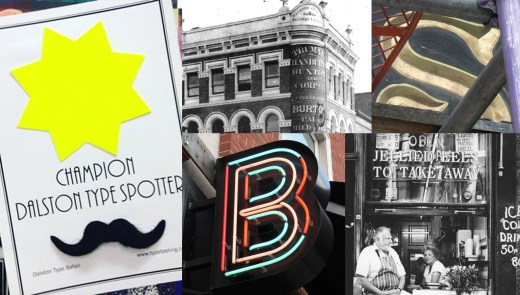
It’s turned into a lovely day, perfect for a balmy Dalston Type Safari with Pia and her 13 graphic design students from Denmark. We’re looking forward to seeing the photographs they take tonight and will post them here soon…
What does signage along a high street reveal about an area? What assumptions do you make that influence your choices? Will you take up the letter hunt challenge? (No prior experience needed, ideal for all).
Dalston Type Safaris are back for Summer 2016 due to popular demand, with different signs to spot and a new letter hunt challenge. Join author Sarah Hyndman for a walking tour of Dalston, a dynamic and fast changing area in East London. Learn about the signage along the way and how it creates the area’s own unique typographic DNA.
READ ALL ABOUT IT! Writer Ellen Himelfarb came along on a recent type safari, read her account of the evening published in AIGA’s Eye on Design.
“Look at Dalston’s signage in a whole new light on this tour of the area’s typefaces. The walks will reveal more about the area’s history, taking in art deco cinemas, a paint factory, pie and eel shop and the market that inspired Eastenders.” Time Out
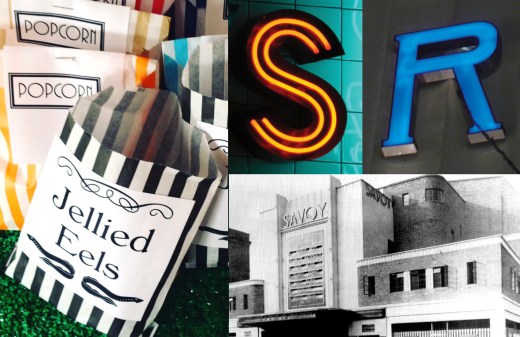
We are surrounded by type and we use it to navigate our everyday lives. The letterforms we encounter as we walk down the high street influence our choices before we’ve even read the words. These also reveal a great deal about the the location, reflecting the social, economic and historical development of the area.
Dalston in East London is a vibrant area in which bars and shops are constantly popping up and the signage is ever changing. The signs along the main road, Kingsland Road, reveal layers of history dating back to when it was a London outpost in the 1800s with it’s own grand department store, pie & eel shops and a factory that sold paints to JMW Turner. Signs from the Art Deco cinemas have been preserved alongside the vernacular D.I.Y. signage of the market stalls and the lettering over the shops and restaurants that reflect the different communities who have made the area home over the years. Many venues, along with their signage, have become iconic landmarks.
• Spend time with like-minded people spotting signs.
• As an introduction to fonts for a novice, or a typographic indulgence for a graphic designer.
• Explore the city in a unique and revealing way.
• Hear about London history and the transformation of an area.
• Find out about great places to eat and drink in Dalston.
• Above all for fun. I want everybody to walk away smiling because typography is fun and exciting.
No experience is necessary. Whatever your level of knowledge you will find this an entertaining and enriching experience.